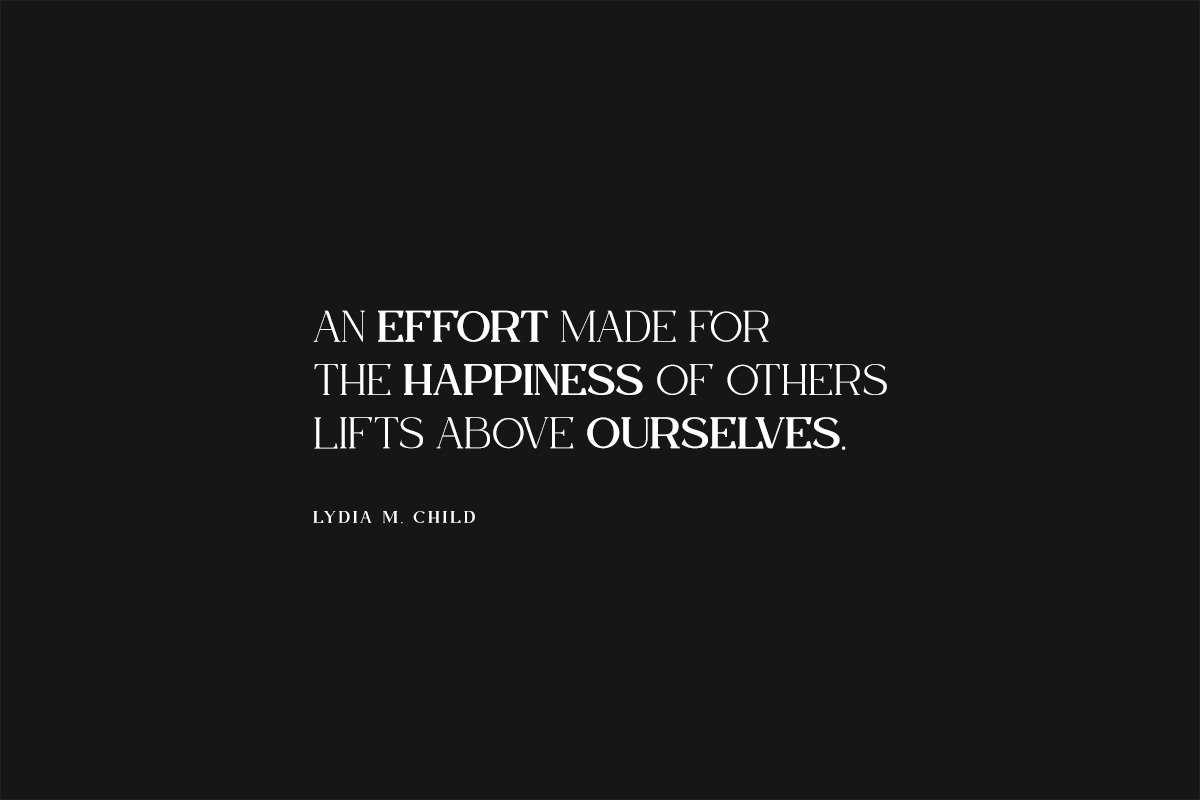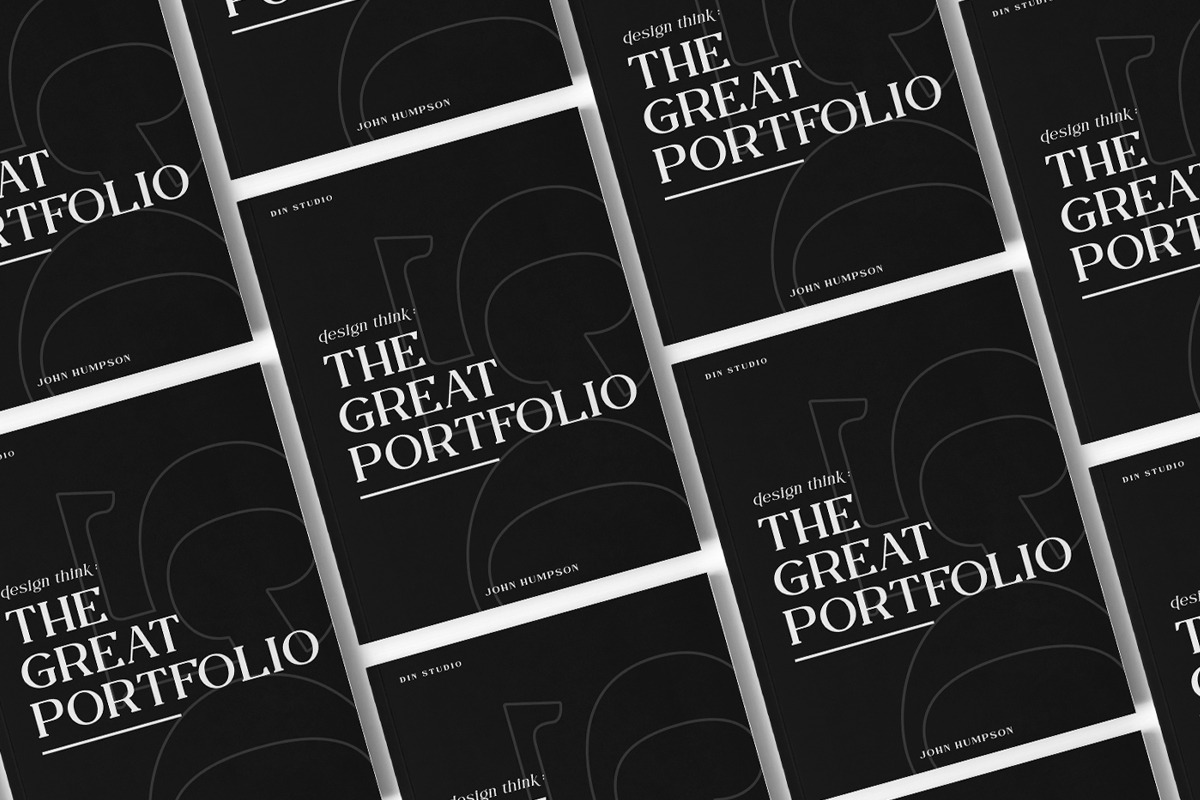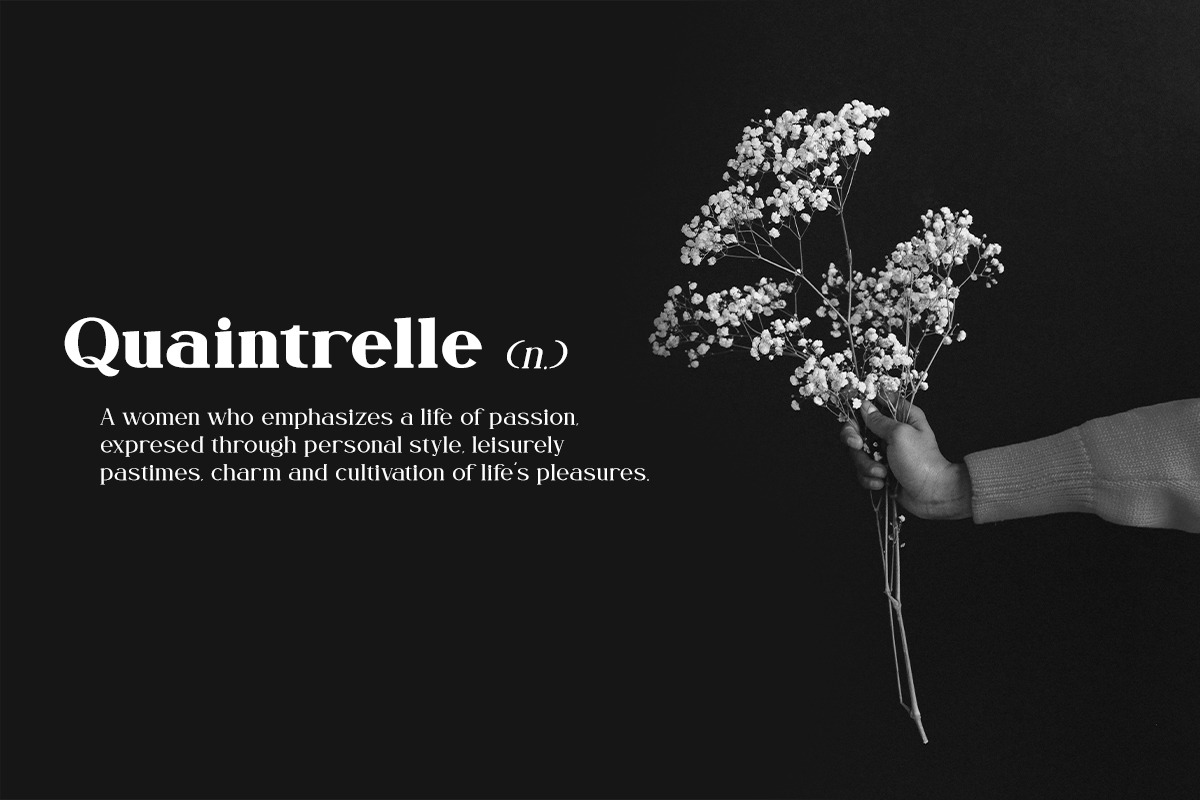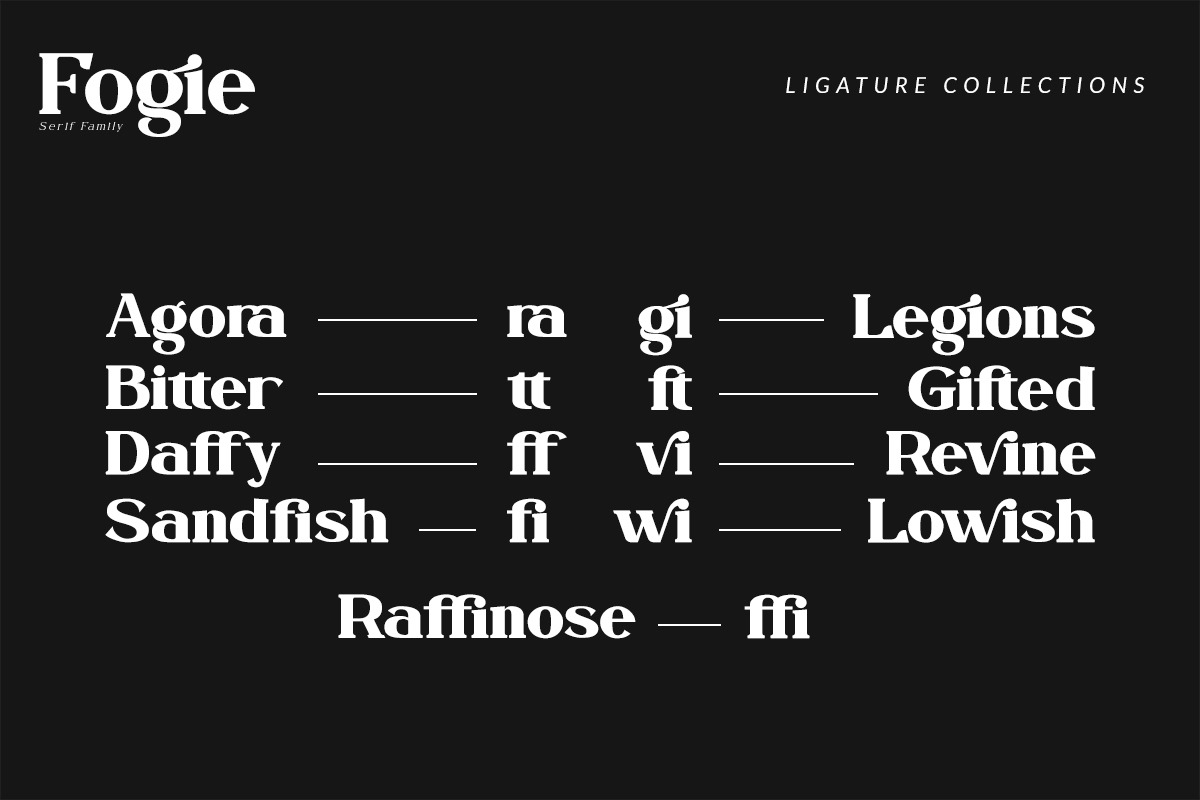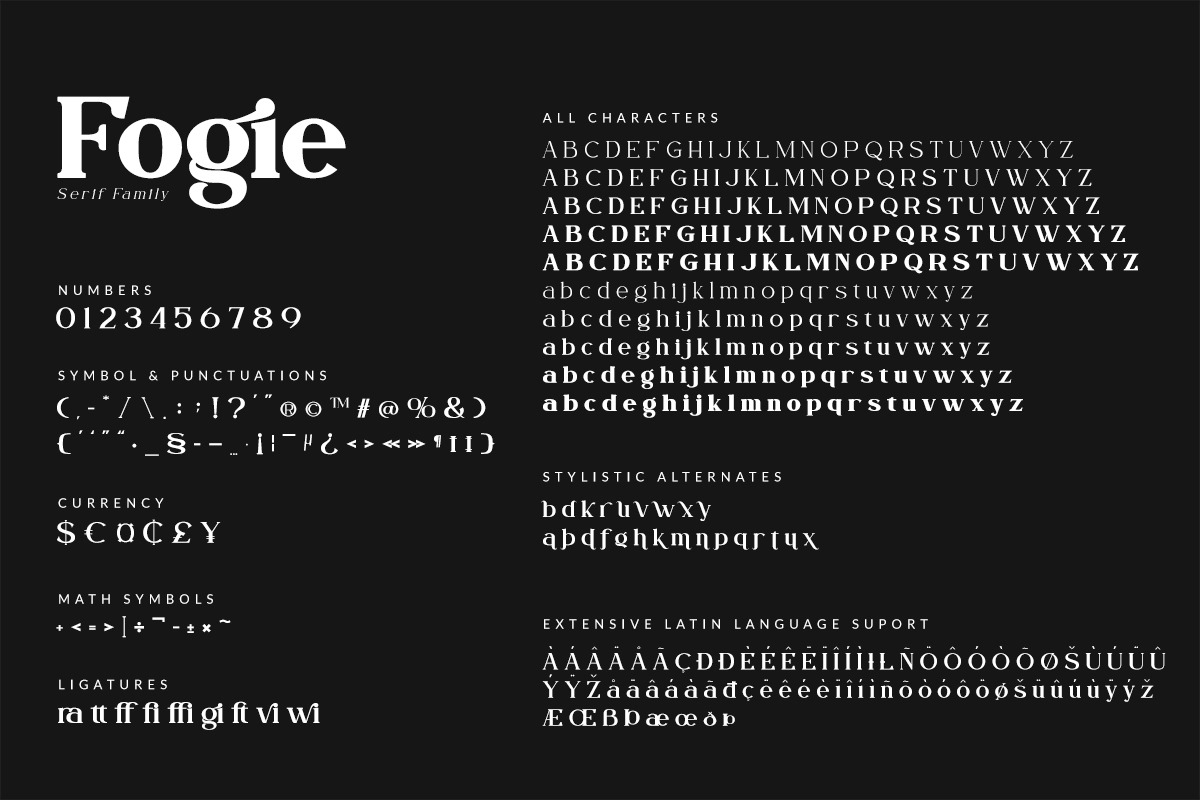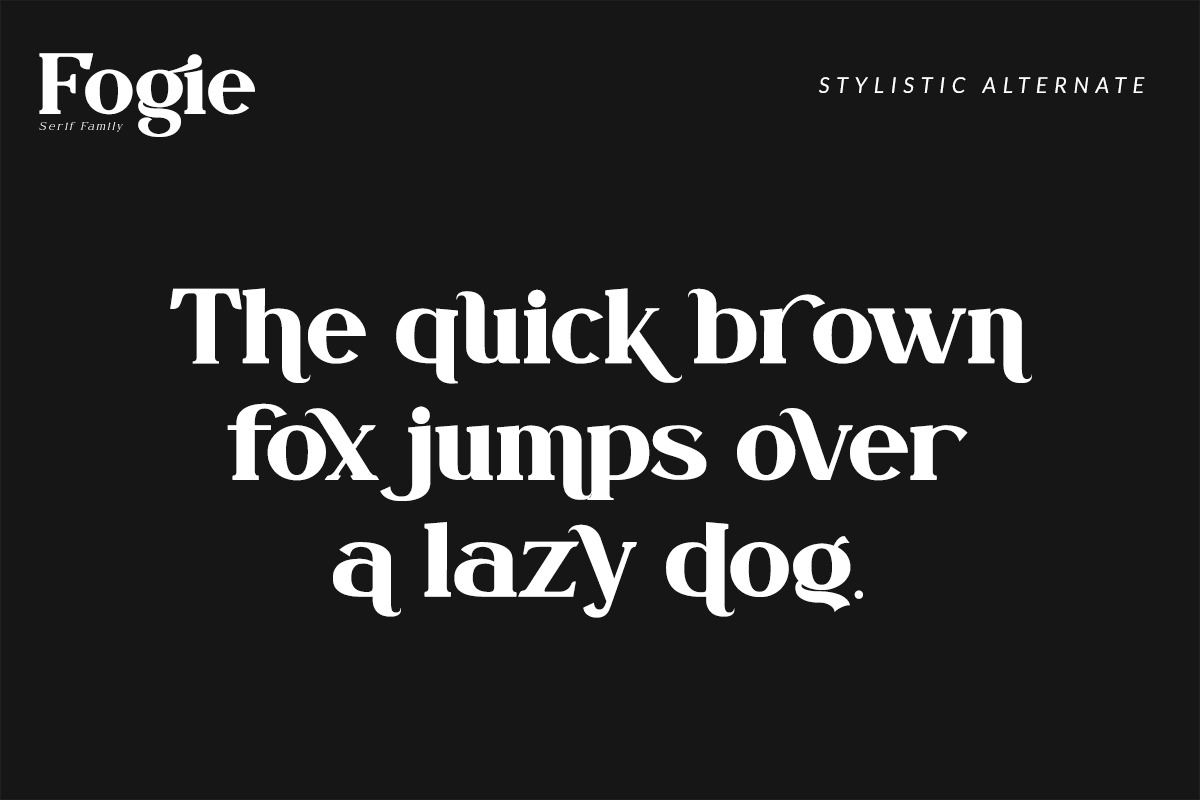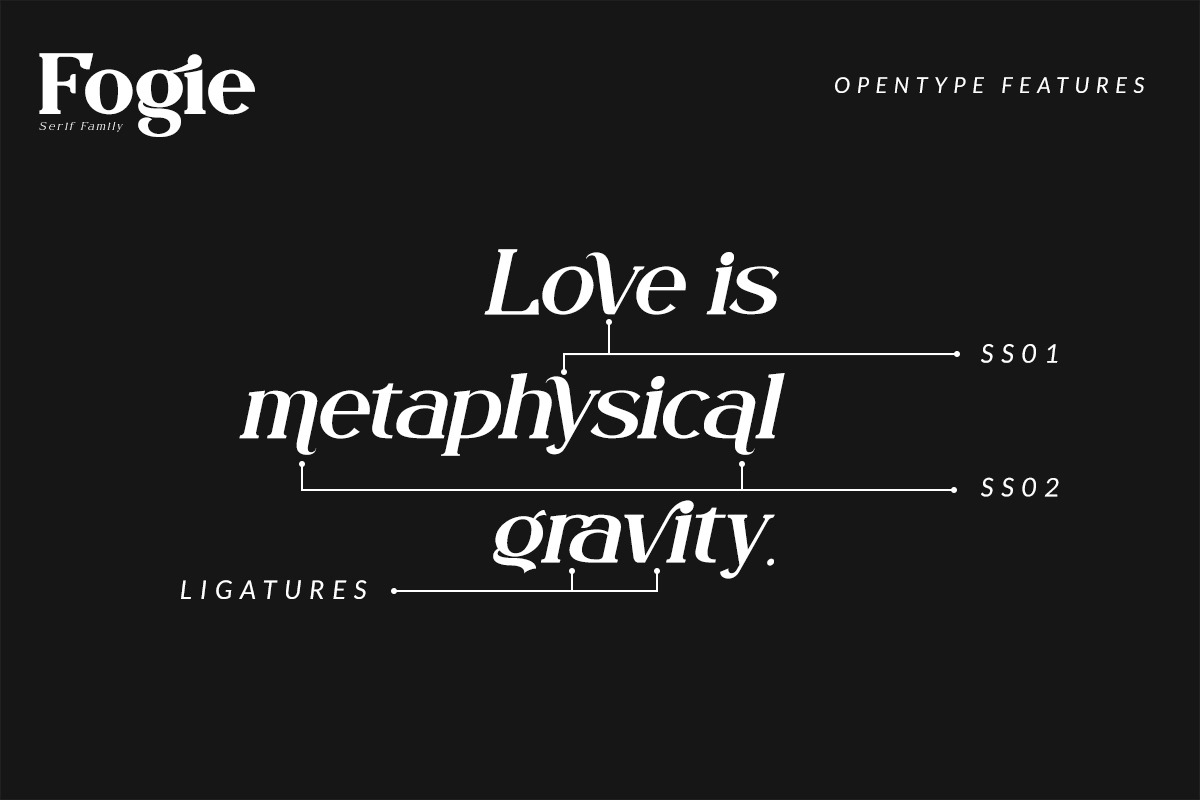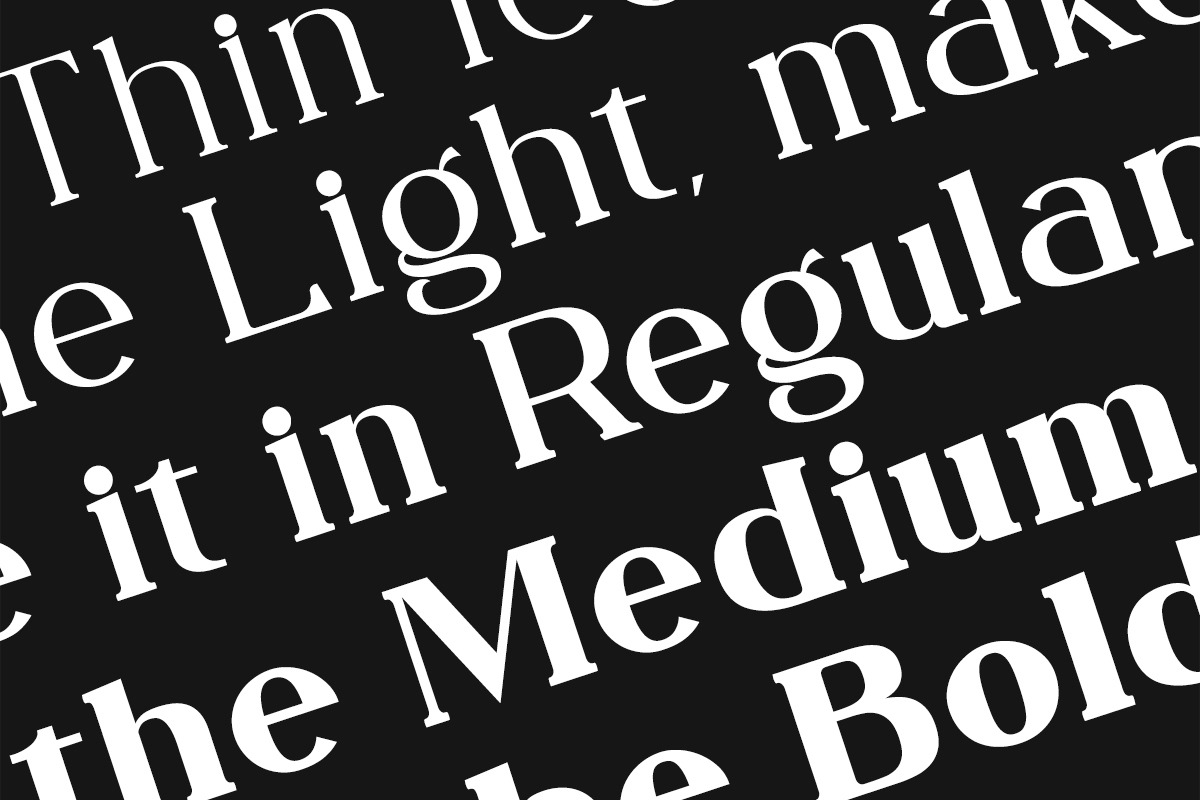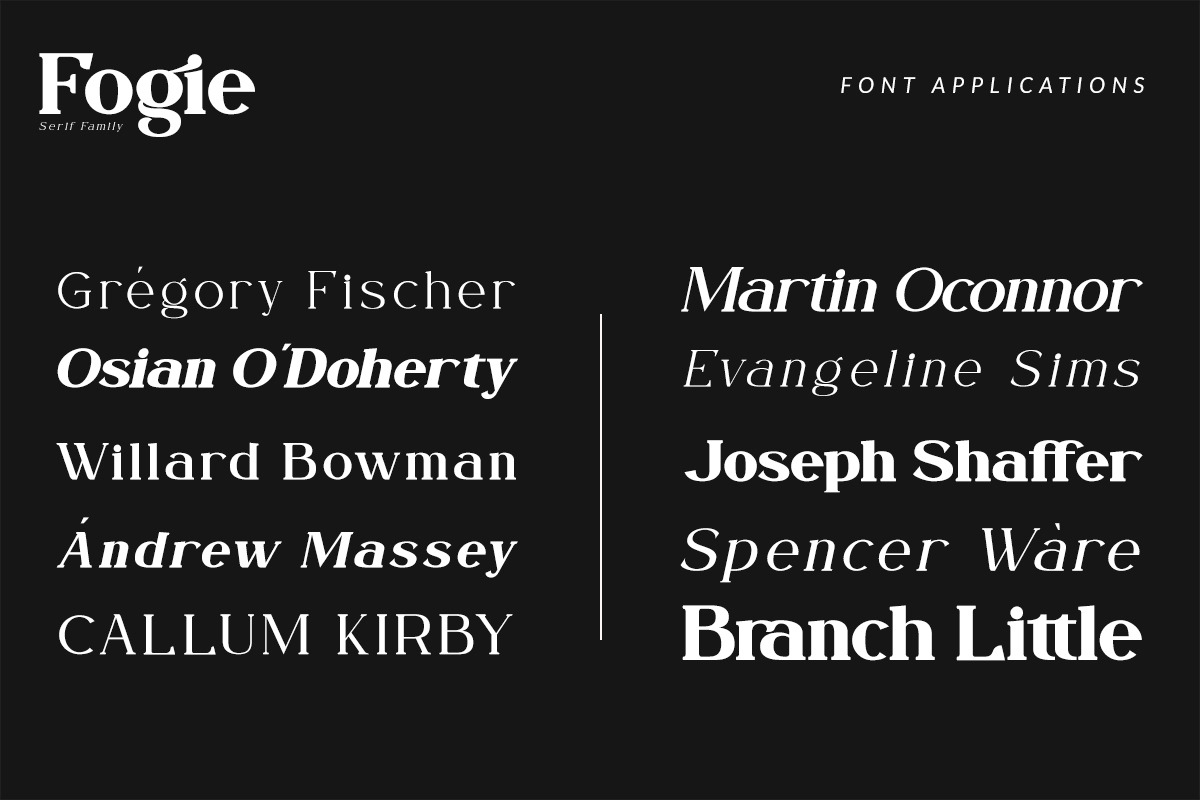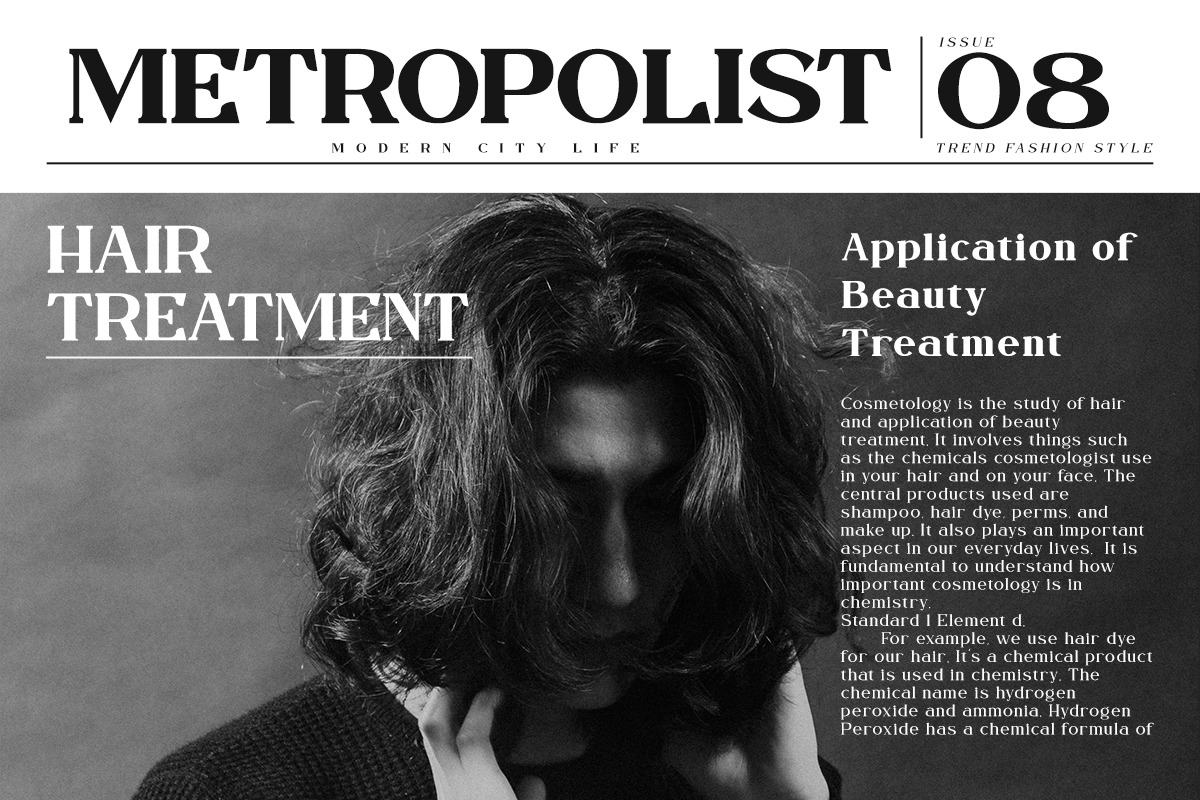
Fogie - Serif Family
Fogie is a modern serif family font. that comes with 10 different weight of fonts. This family also featured with many ligatures and alternates. Designed with powerful OpenType features in mind and perfectly suited for graphic design and any display use, Use Fogie for various designs, such as posters, banners, logos, book covers, headings, printed products, merchandise, social media, and more. Find out more ways to use this font by taking a look at the font preview.